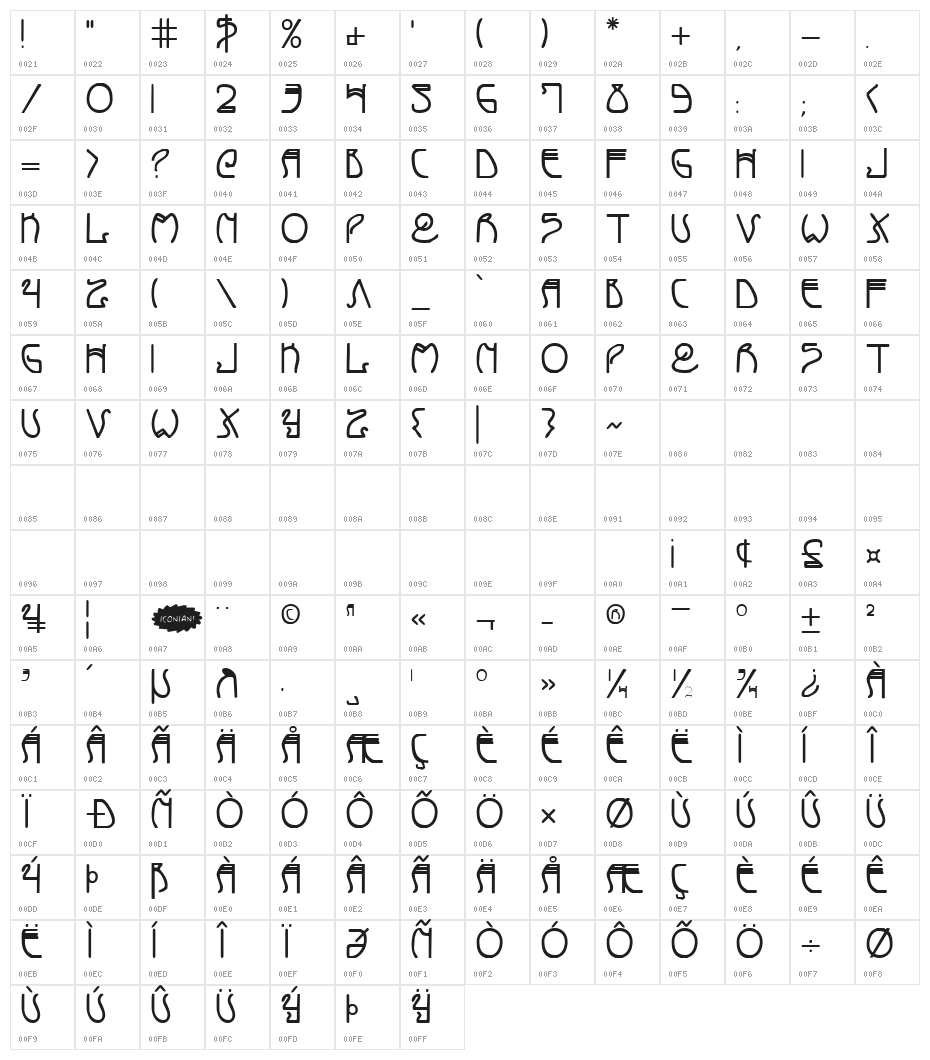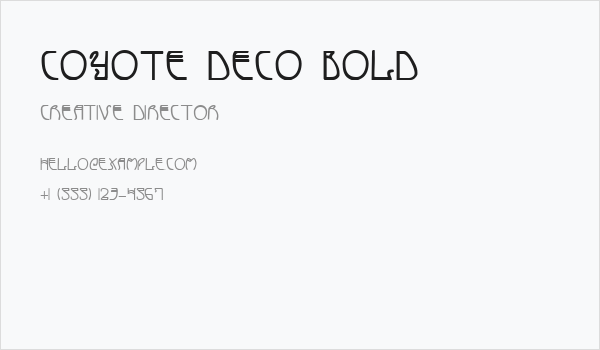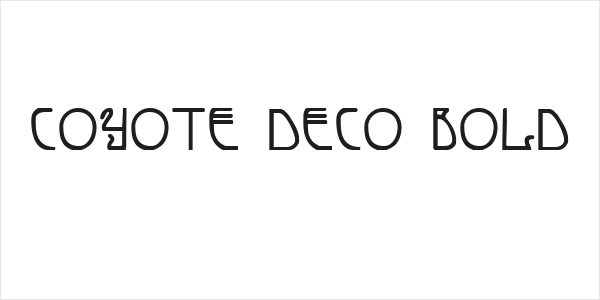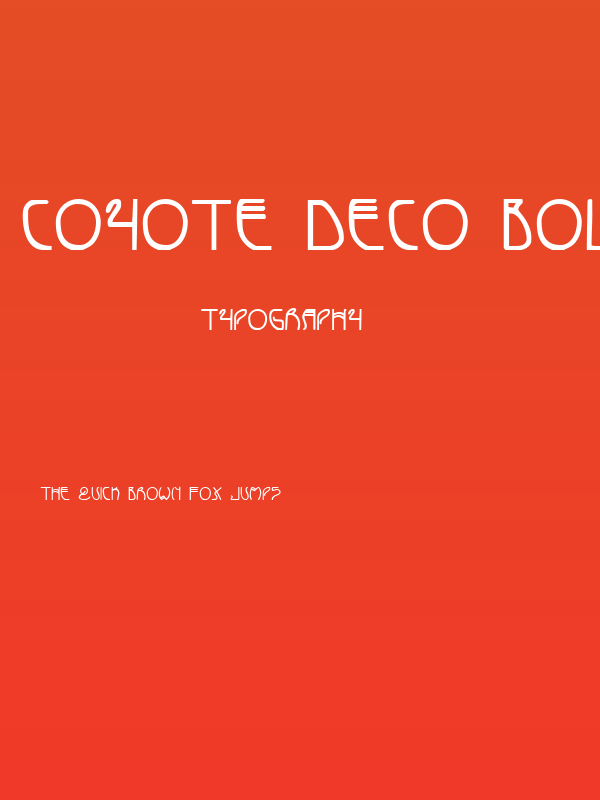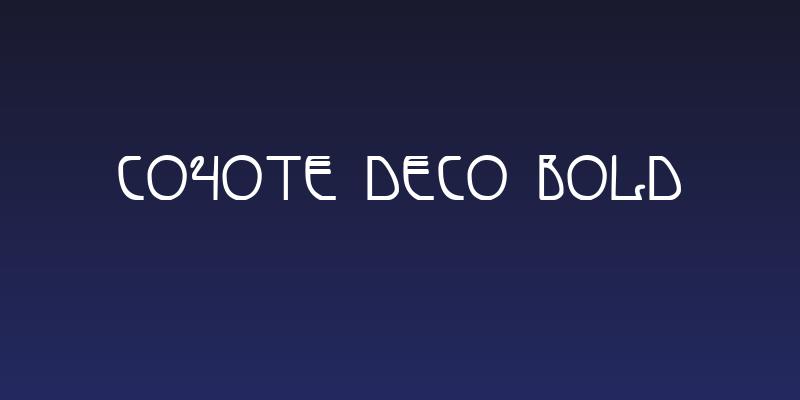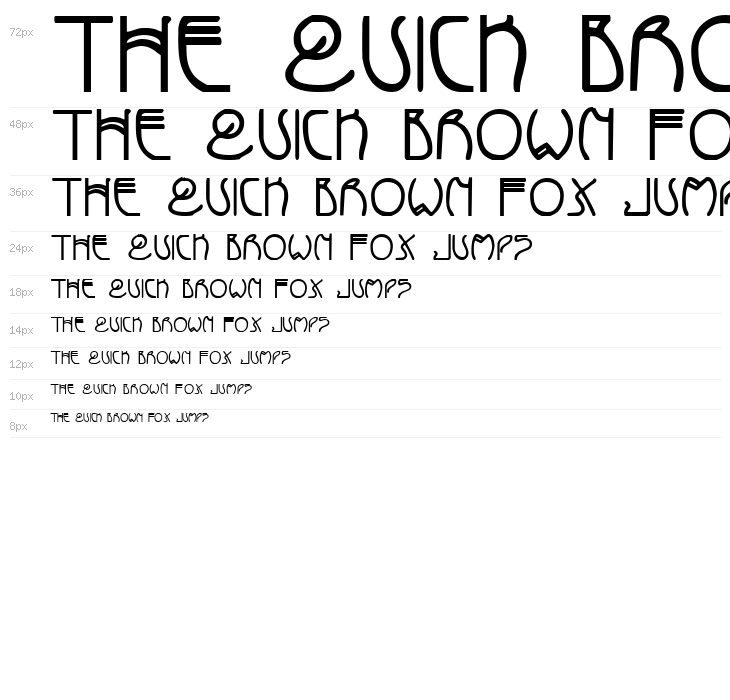
Coyote Deco Bold Font
Coyote Deco Bold Description
This font features a bold, decorative style with a unique, geometric flair. The characters are designed with a modern twist, incorporating sharp angles and smooth curves that give it a futuristic and artistic appearance. The uppercase and lowercase letters maintain a consistent design language, with distinct, stylized elements that make each character stand out. The numerals and special characters follow the same design principles, ensuring a cohesive look across all glyphs. This font is ideal for projects that require a bold statement, capturing attention with its distinctive and creative design.